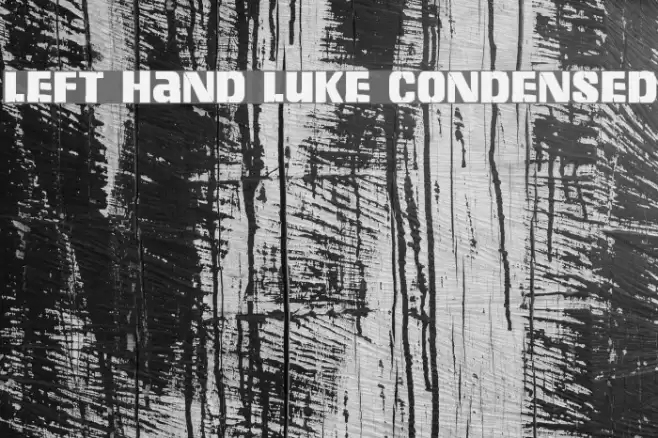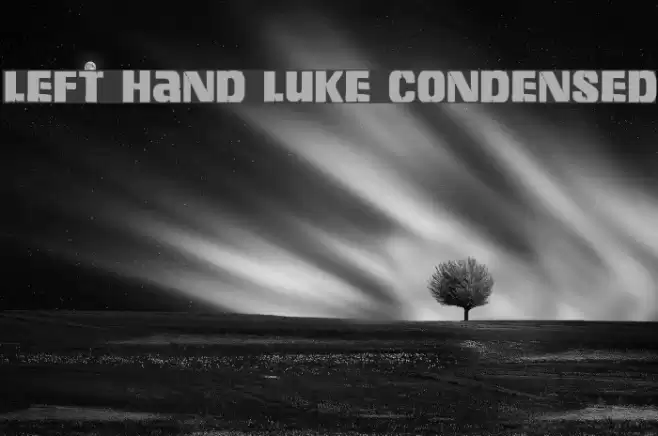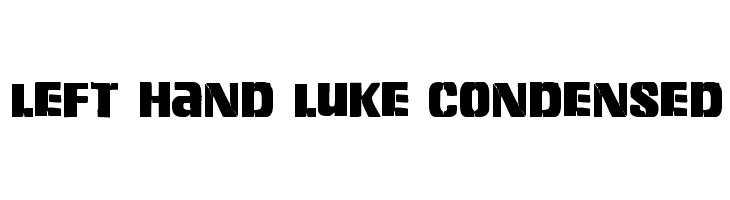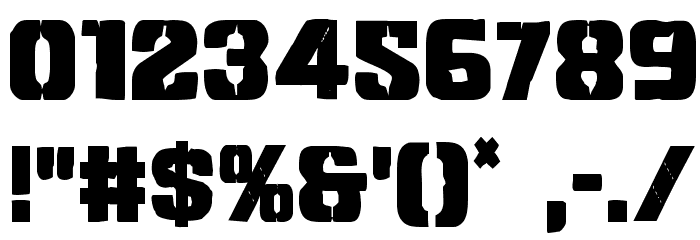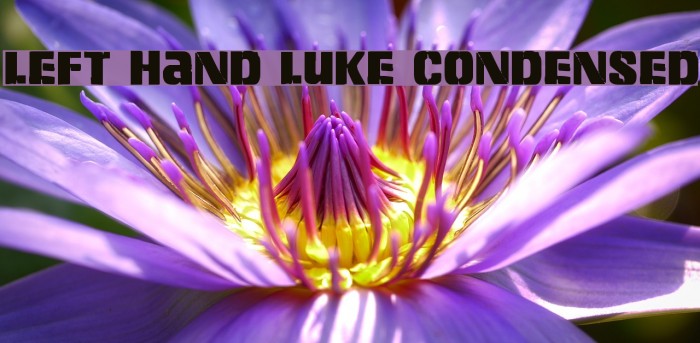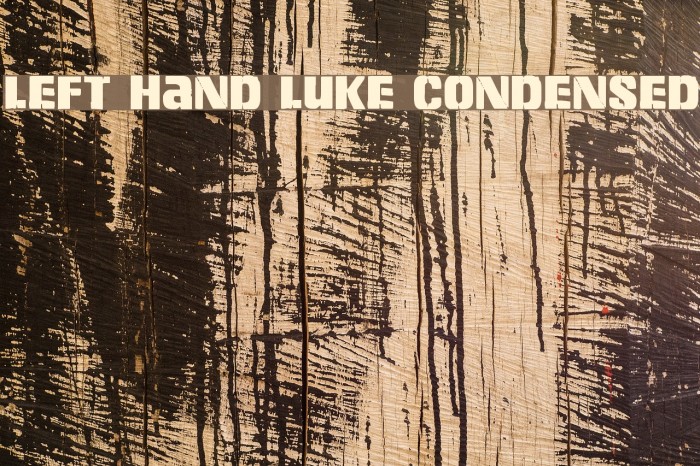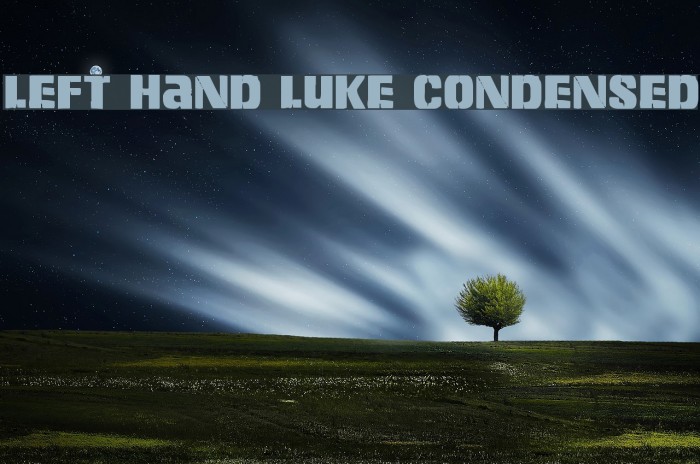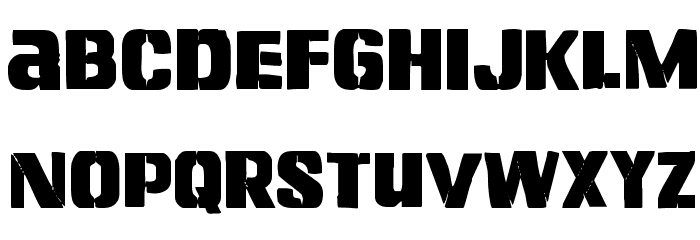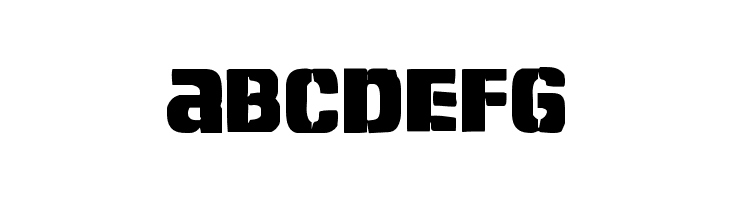
Left Hand Luke Condensed Font
Left Hand Luke Condensed Description
This font features a bold, condensed style with a distinctly rugged and industrial appearance. The characters are blocky and robust, with a stencil-like quality that suggests a utilitarian, no-nonsense aesthetic. The uppercase and lowercase letters maintain a consistent width, contributing to a uniform and cohesive look. The numerals and special characters follow the same design principles, ensuring visual harmony across all elements. The font's heavy weight and condensed form make it highly impactful, ideal for making strong visual statements.
A bold, condensed font with a rugged, industrial style from Distorted Eroded fonts.
- Proposed Projects: Ideal for posters, signage, branding, and any project requiring a strong, impactful typeface.
- Overall Style: Industrial, Stencil